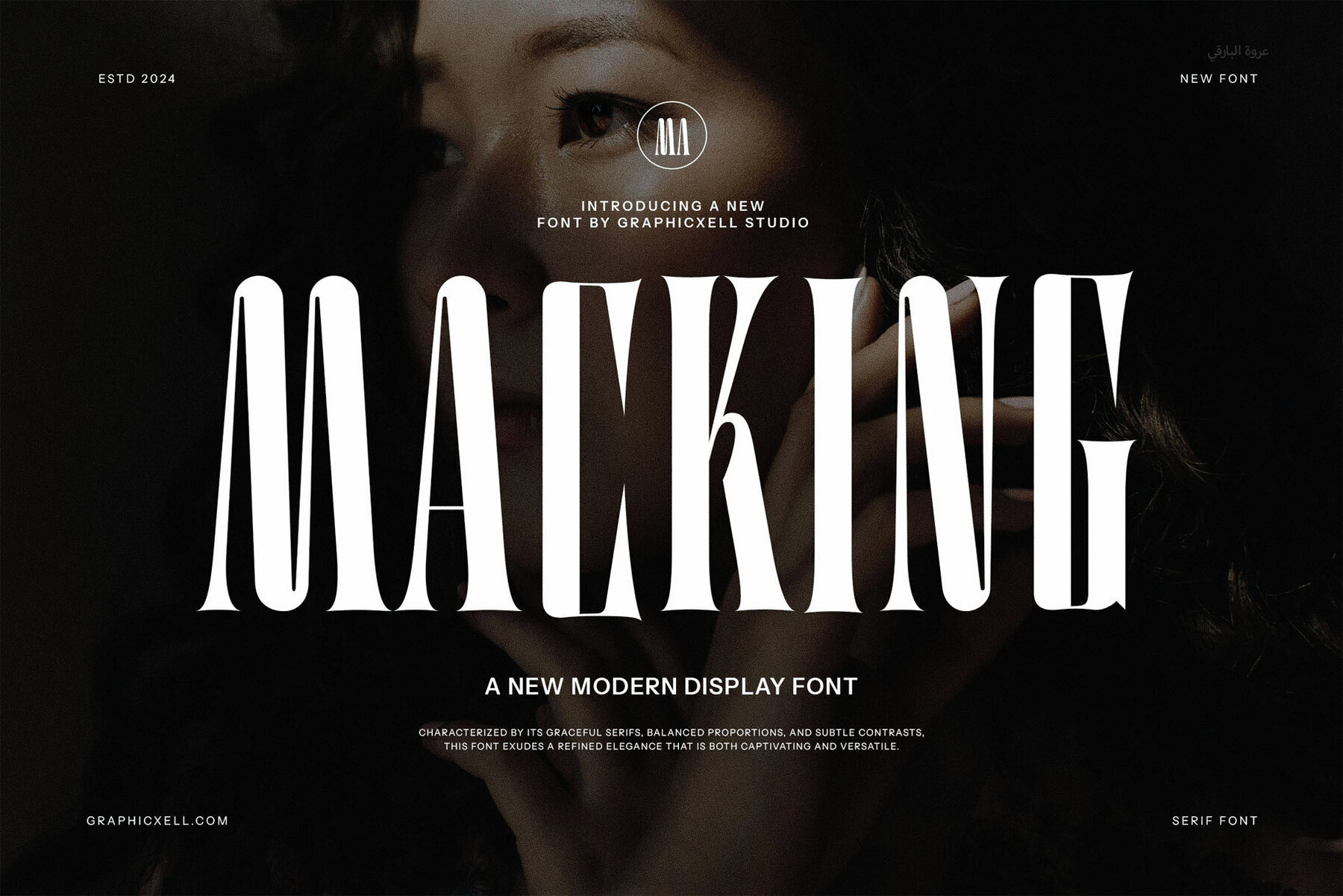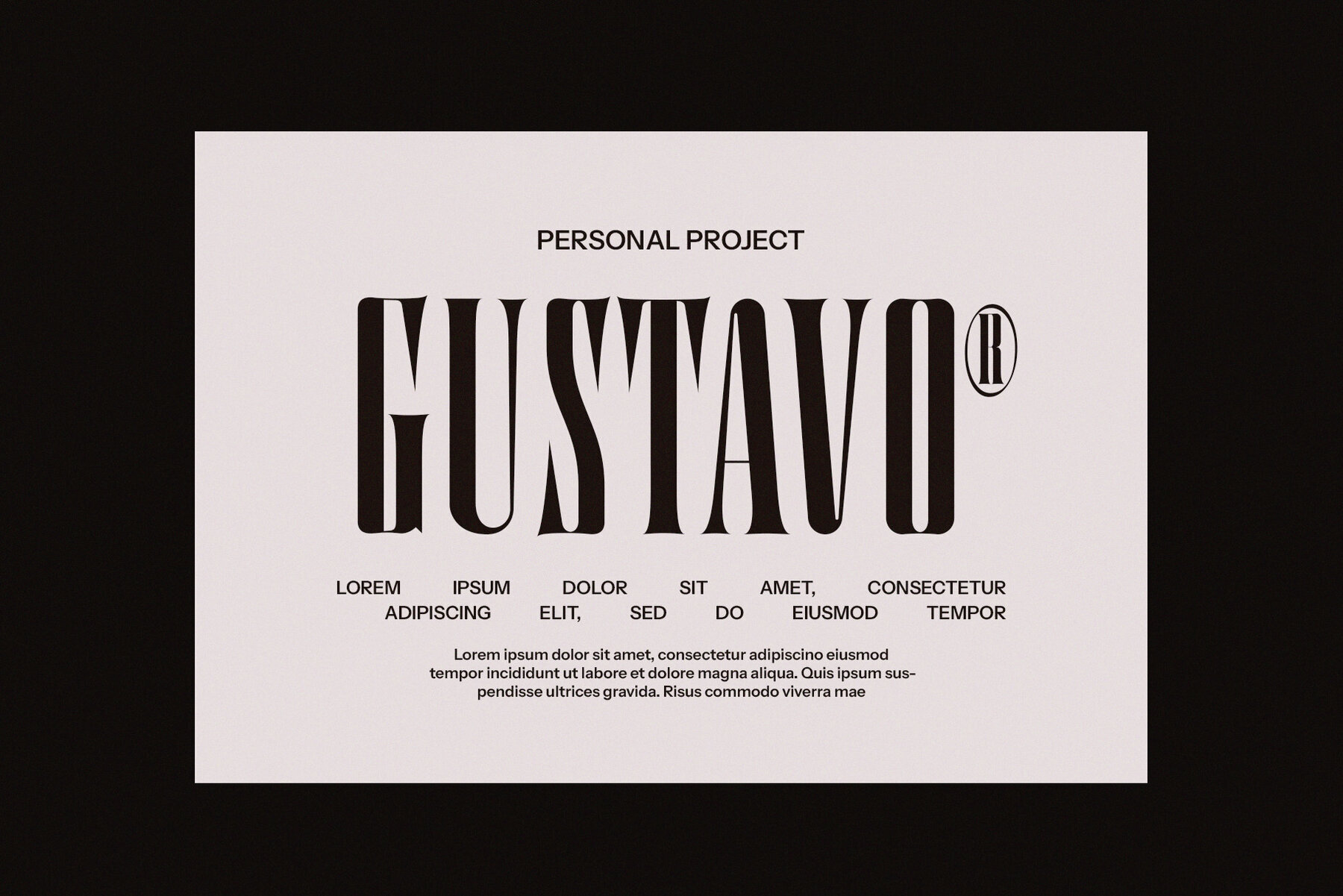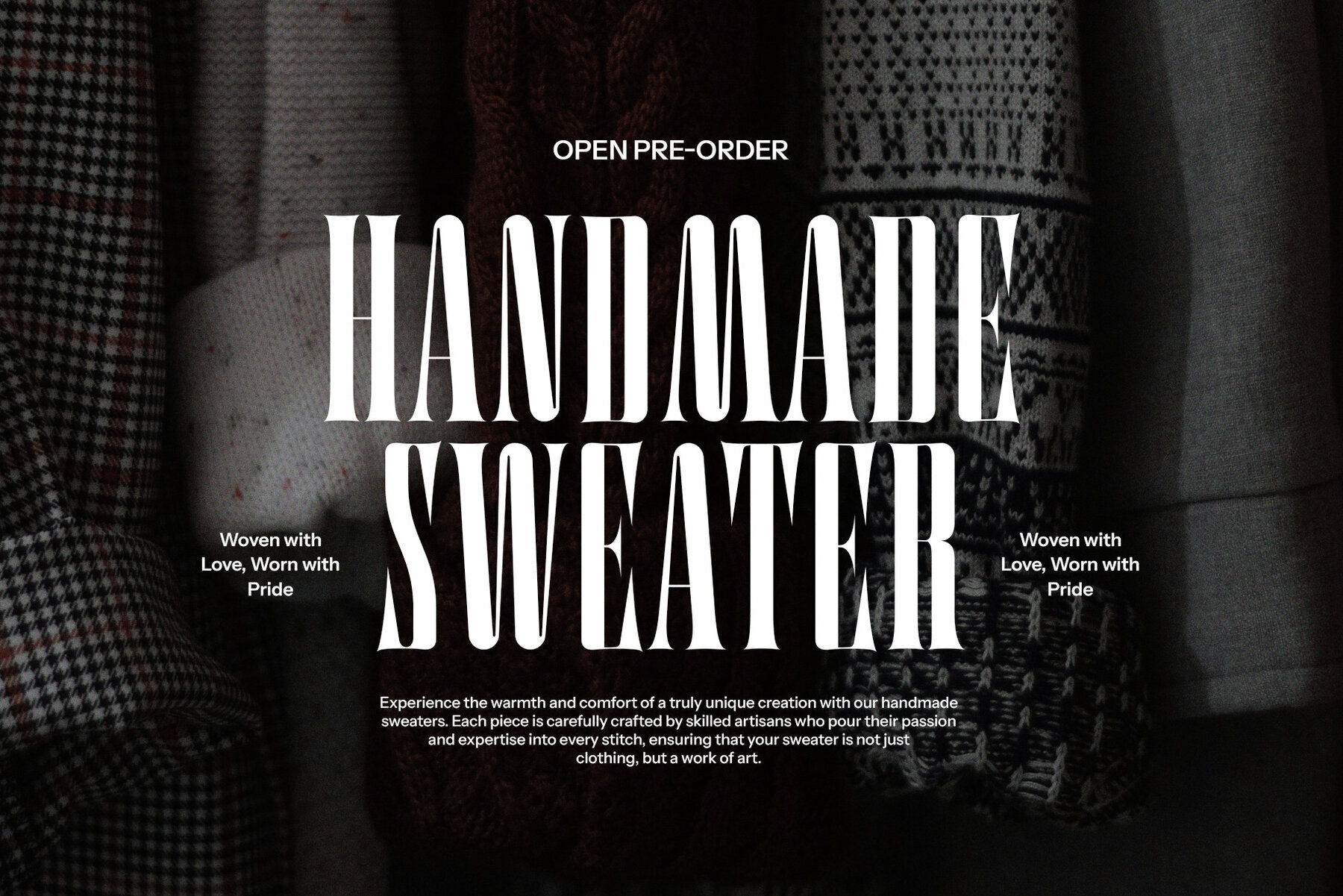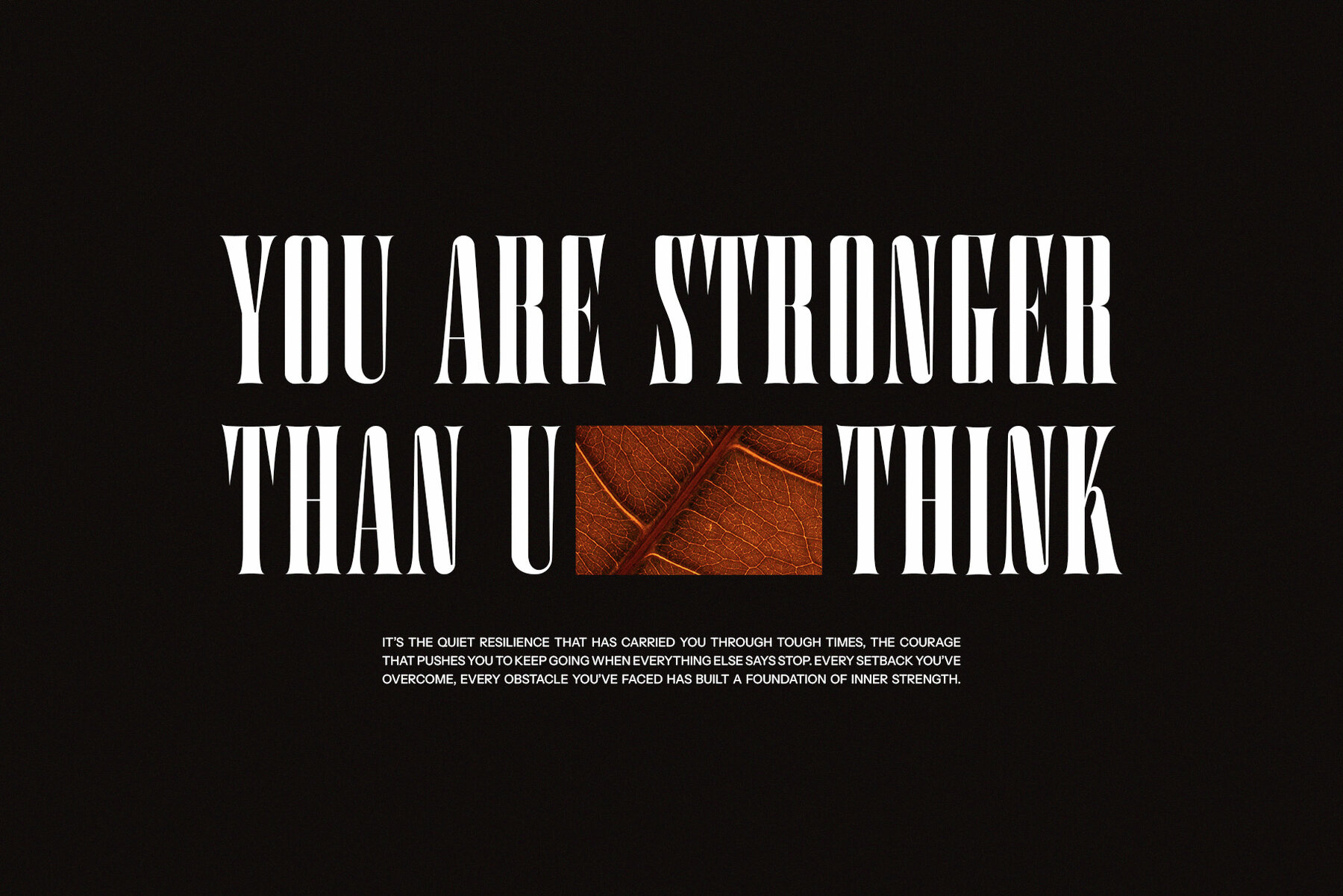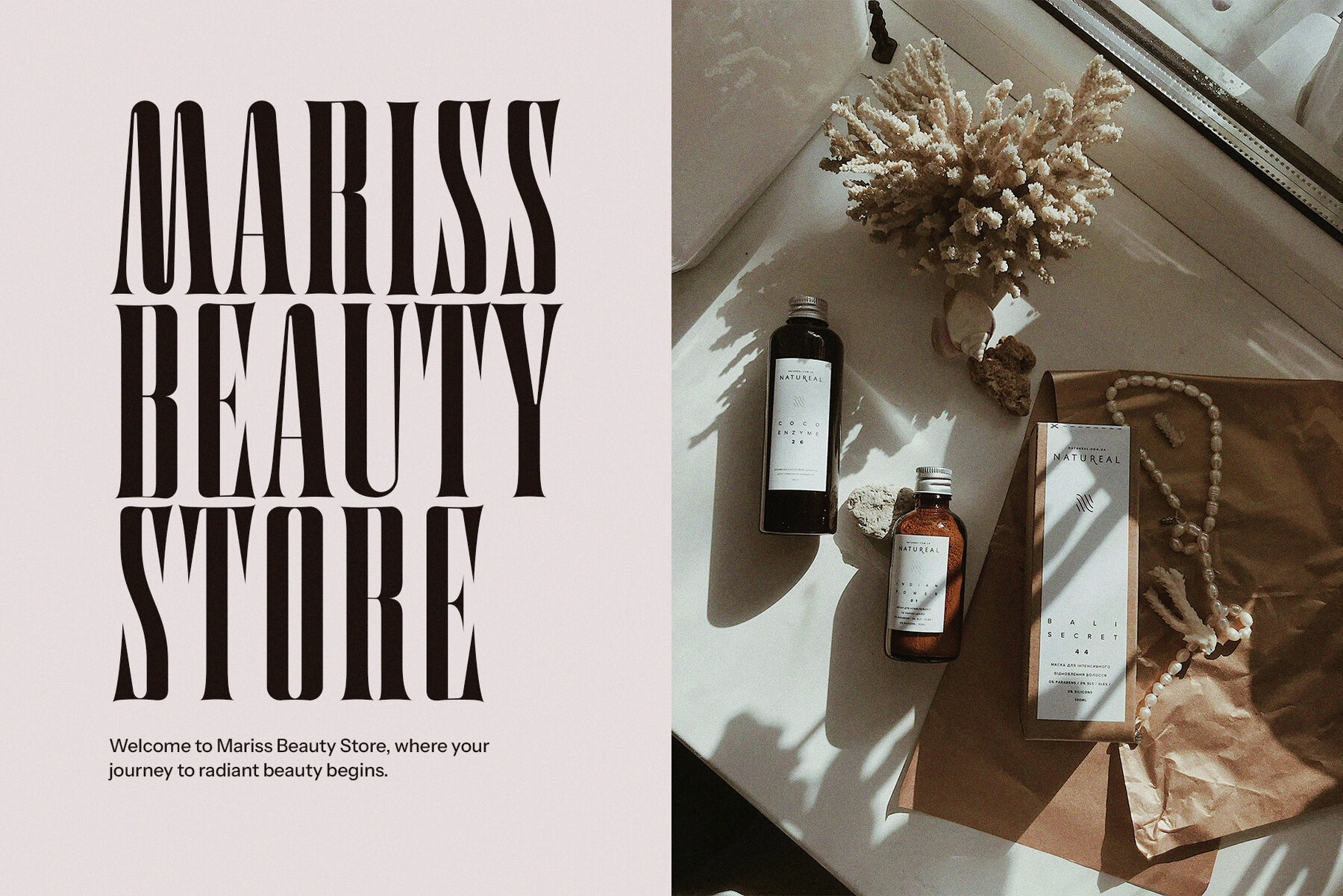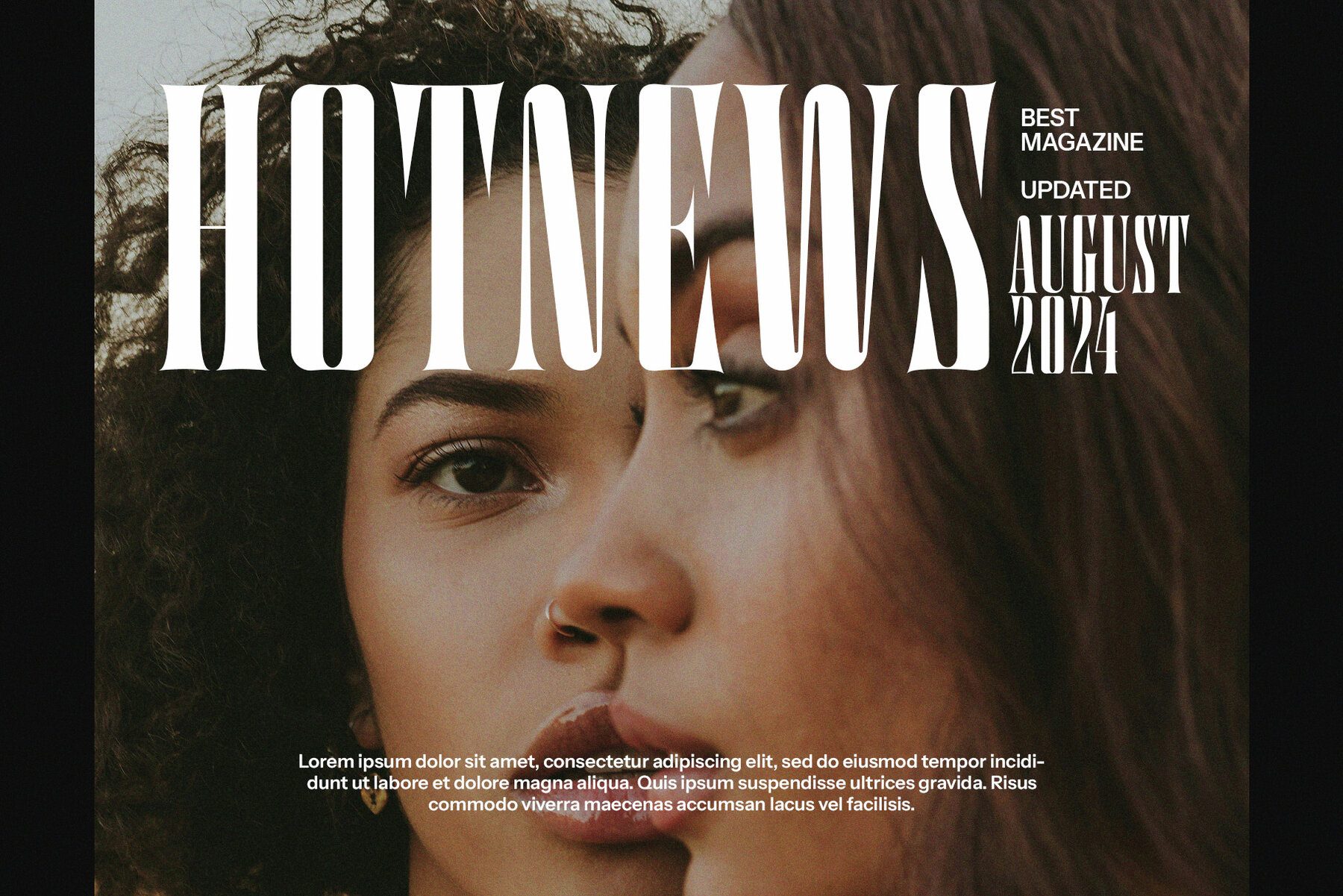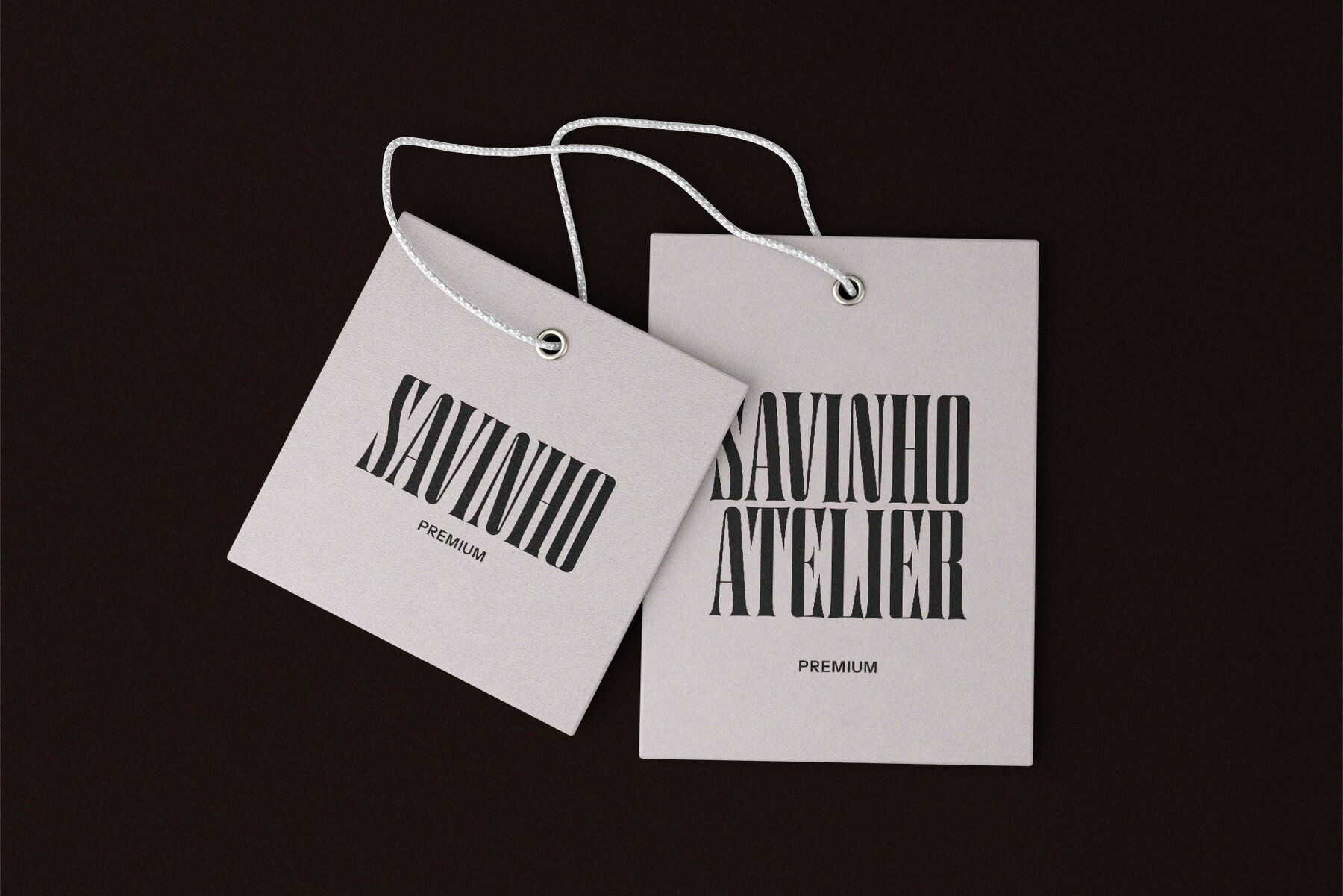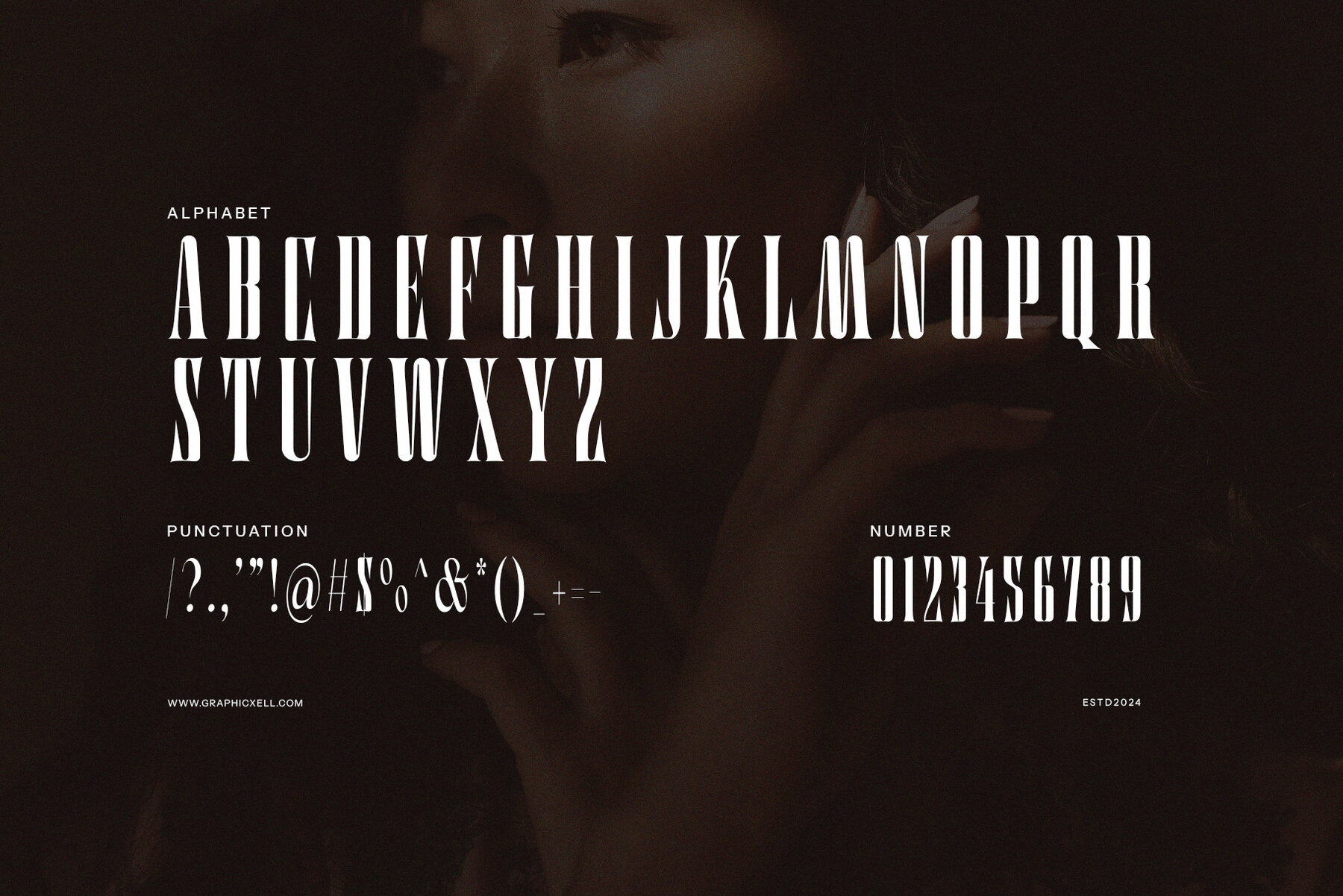
Macking Font
Macking Regular
Macking is a modern serif typeface designed to bring a fashionable and sophisticated touch to your projects. Its delicate curves and elegant style make it perfect for beauty designs, elegant crafts, layouts, ad branding, and various design templates. With its classy ligatures and calligraphic influences, this font provides a contemporary feel that enhances the appeal of any design.
The smooth strokes and well-balanced line thickness of Macking add to its sophistication, making it suitable for both personal and commercial use. Whether you are working on a branding project or refining a layout design, this typeface meets your needs while adding charm and character to your work. Embrace the modern elegance of Macking to achieve a beautiful and polished look in your graphic design projects.